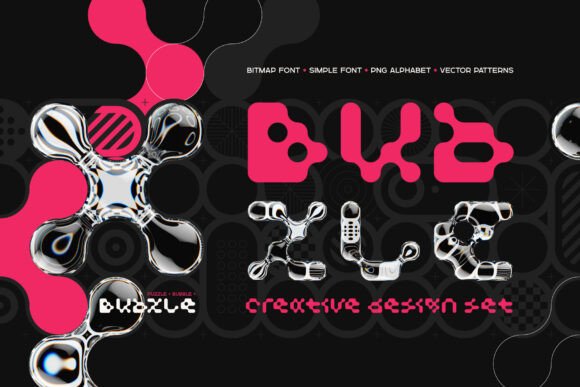
Bubzle Font: A Creative Design Set Inspired by Smooth Bubbles and Puzzle Pieces
The world of typography and font design is vast and diverse, with numerous styles and themes to choose from. One of the most unique and captivating font designs is the Bubzle Font, an abstract font-based creative design set that draws inspiration from the shape of smooth bubbles and puzzle pieces. In this article, we’ll take a closer look at the Bubzle Font, its features, and what makes it stand out from other font designs.
What is Bubzle Font?
Hello! Presenting an abstract font-based creative design set – Bubzle. The design theme is inspired by the shape of smooth bubbles and the shape of puzzle pieces. This set consists of a bitmap color font, vector classic type font, full-resolution PNG files with transparent backgrounds & abstract vector patterns.
Key Features of Bubzle Font
The Bubzle Font is a comprehensive design set that includes a range of features, making it a versatile and practical choice for designers and artists. Some of the key features of the Bubzle Font include:
- Bitmap Color Font: The Bubzle Font includes a bitmap color font that allows for a range of colors and textures to be applied to the text.
- Vector Classic Type Font: The vector classic type font provides a clean and crisp design that can be scaled up or down without losing any quality.
- Abstract Vector Patterns: The abstract vector patterns provide a range of creative possibilities, from backgrounds to textures and more.
Inspiration Behind Bubzle Font
The Bubzle Font is inspired by the shape of smooth bubbles and puzzle pieces. The designer aimed to capture the playful and creative spirit of these shapes and translate them into a unique font design. The result is a font that is both fun and sophisticated, making it perfect for a range of design applications.
The Bubzle Font is a reflection of the beauty and simplicity of smooth bubbles and puzzle pieces. The design is meant to evoke a sense of playfulness and creativity, while also providing a high level of sophistication and elegance.
Design Applications of Bubzle Font
The Bubzle Font is a versatile design set that can be used in a range of applications, from graphic design to digital art. Some of the design applications of the Bubzle Font include:
- Branding and Logo Design: The Bubzle Font can be used to create unique and memorable logos and branding materials.
- Digital Art and Illustration: The Bubzle Font can be used to add a touch of whimsy and creativity to digital art and illustrations.
Benefits of Using Bubzle Font
The Bubzle Font offers a range of benefits to designers and artists, including:
- Unique and Creative Design: The Bubzle Font provides a unique and creative design that can help to set a project apart from others.
- Versatility: The Bubzle Font is a versatile design set that can be used in a range of applications.
- High-Quality Design: The Bubzle Font is designed to high standards, ensuring a high level of quality and sophistication.
| Author | Gleb Guralnyk |
The Bubzle Font is a unique and creative design set that draws inspiration from the shape of smooth bubbles and puzzle pieces. With its range of features, including a bitmap color font, vector classic type font, full-resolution PNG files with transparent backgrounds, and abstract vector patterns, the Bubzle Font is a versatile and practical choice for designers and artists. Whether you’re looking to create a memorable logo, add a touch of whimsy to your digital art, or create a visually appealing website, the Bubzle Font is a great choice.